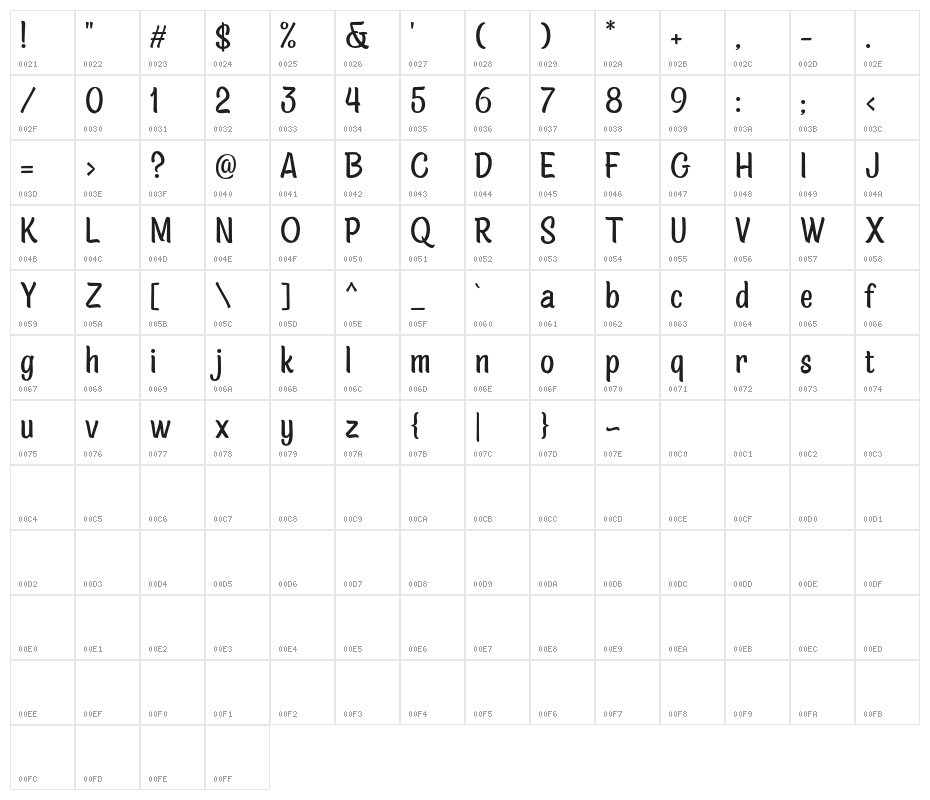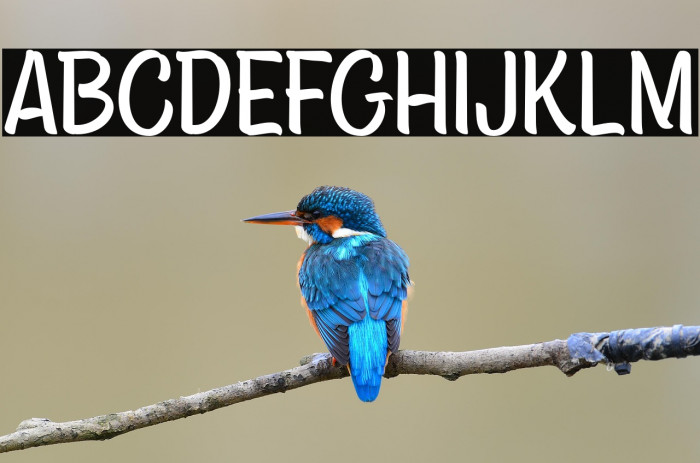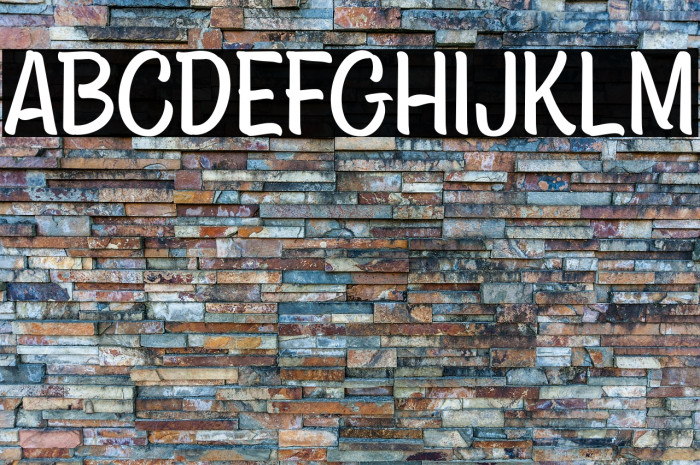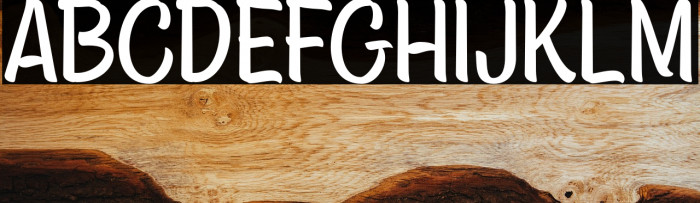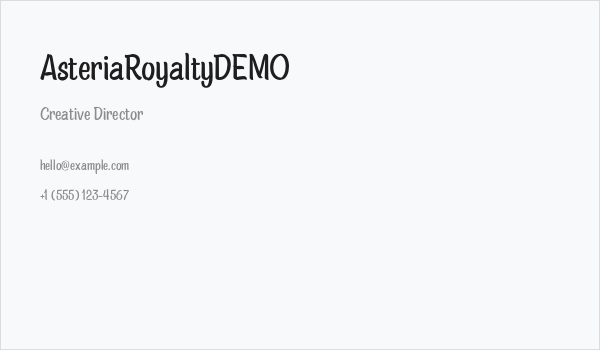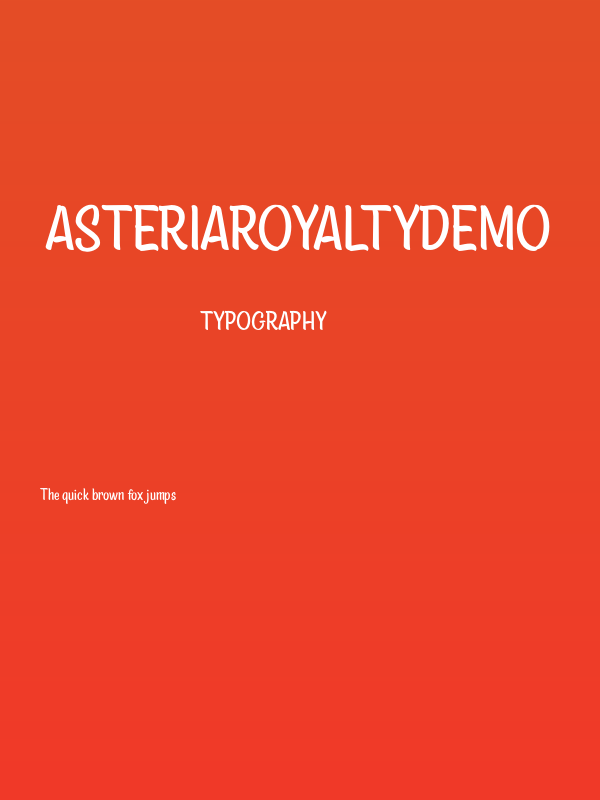
AsteriaRoyaltyDEMO Font
AsteriaRoyaltyDEMO Description
This font features a playful and whimsical style with a handwritten touch. The characters are bold and rounded, giving them a friendly and approachable appearance. The uppercase letters are slightly taller and more pronounced, while the lowercase letters maintain a consistent flow with subtle variations in stroke width. The numerals are clear and easy to read, complementing the overall design. Special characters are creatively integrated, adding to the font's charm. This font is suitable for projects that require a casual and inviting aesthetic.
| Proposed Projects | Ideal for children's books, greeting cards, playful branding, and casual invitations. |